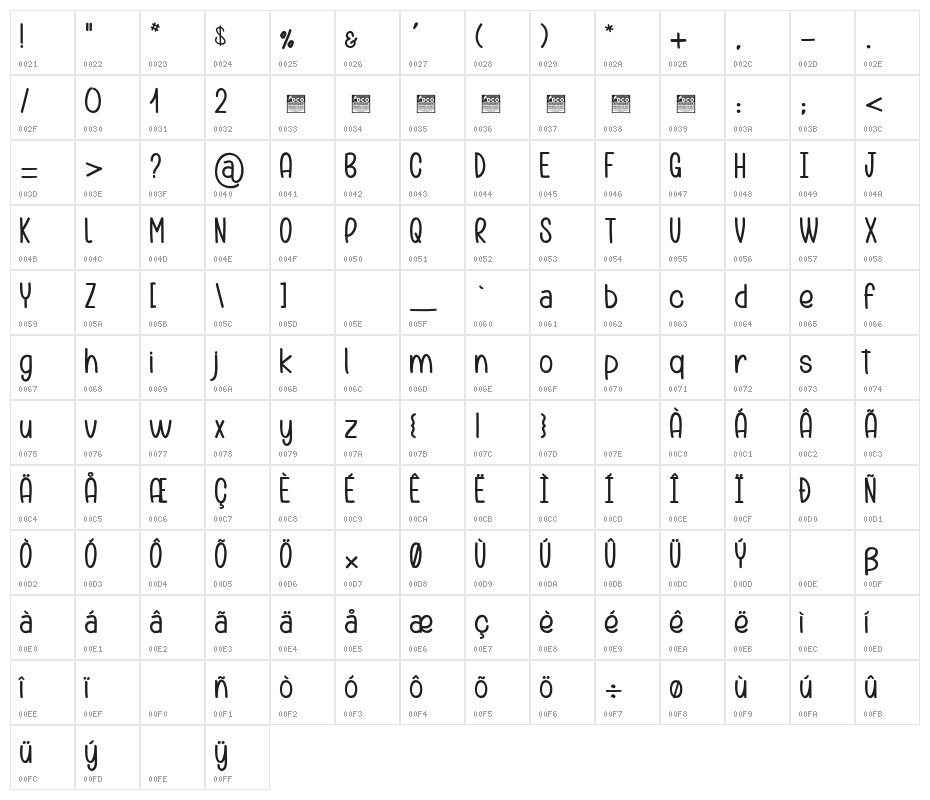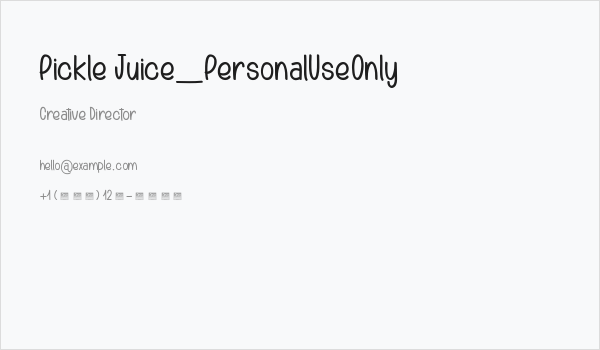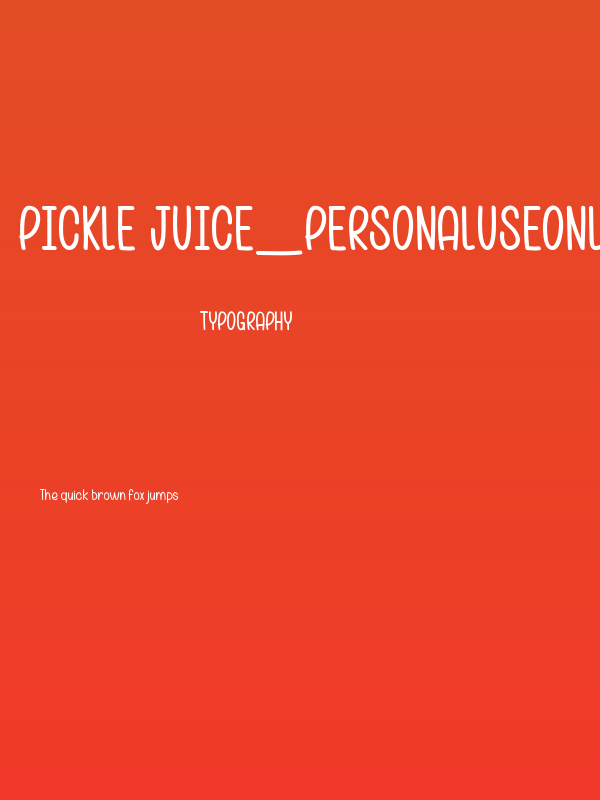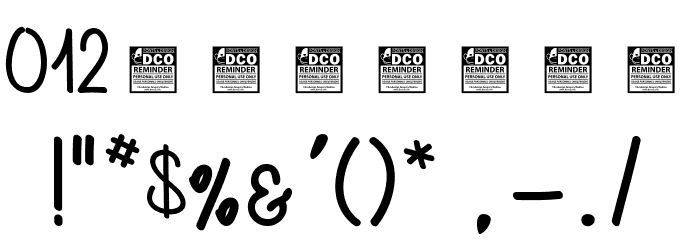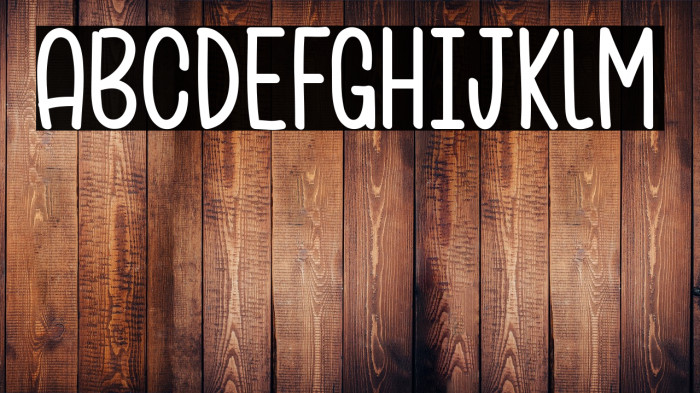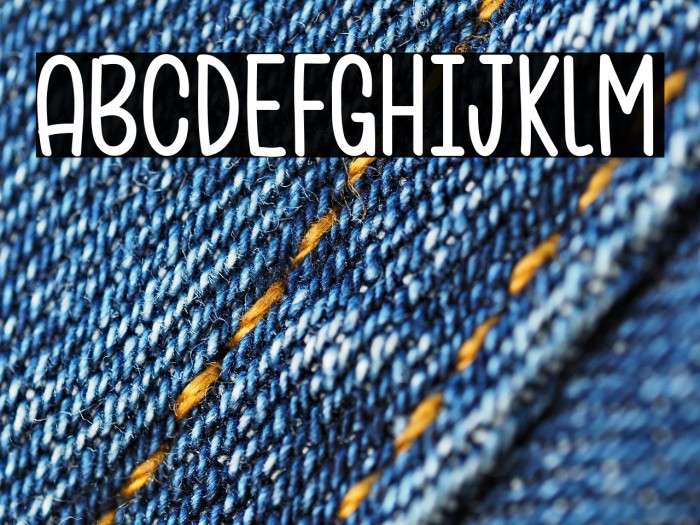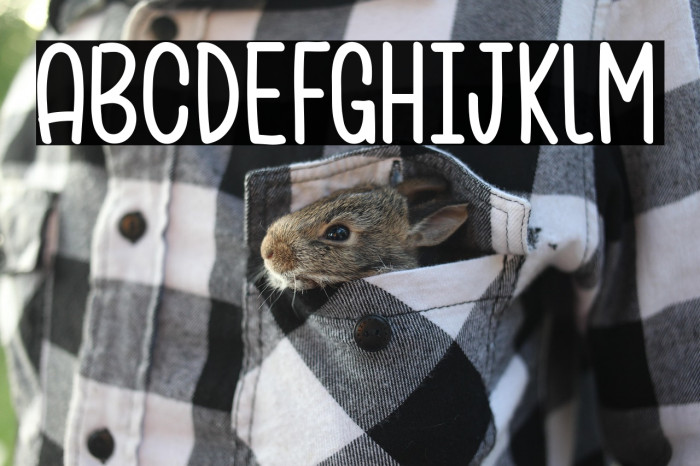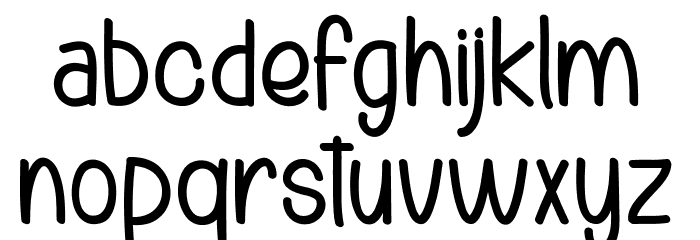
Pickle Juice_PersonalUseOnly Font
Pickle Juice_PersonalUseOnly Description
This playful and whimsical font features a handwritten style with rounded edges and a casual feel. The characters are slightly elongated, giving them a unique and friendly appearance. The uppercase letters maintain a consistent height, while the lowercase letters have a charming irregularity that adds to the font's personality. The numbers and special characters are designed to match the overall style, ensuring a cohesive look. This font is ideal for projects that require a fun and approachable aesthetic.
| Use Case | Logos, Headlines, Informal Text |
| Proposed Projects | Ideal for children's books, greeting cards, playful branding, and social media graphics. |